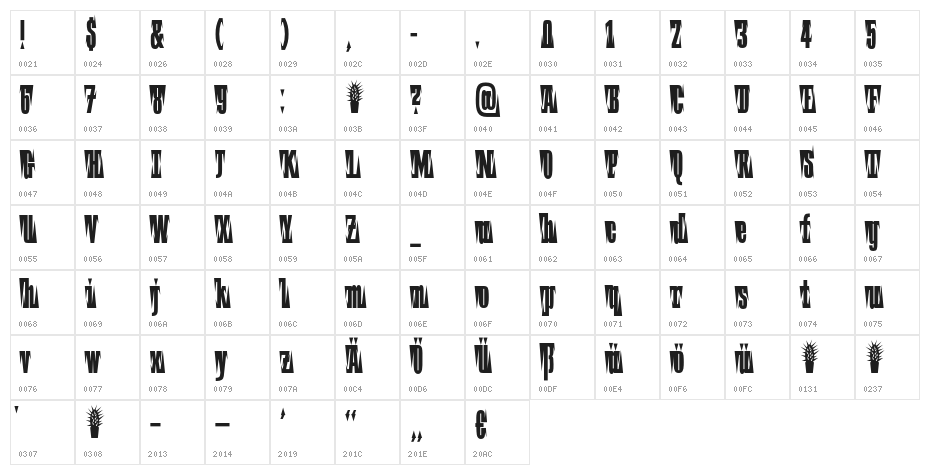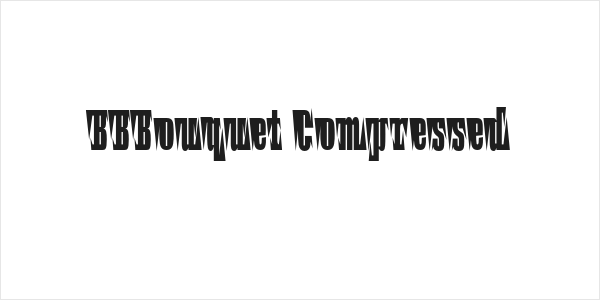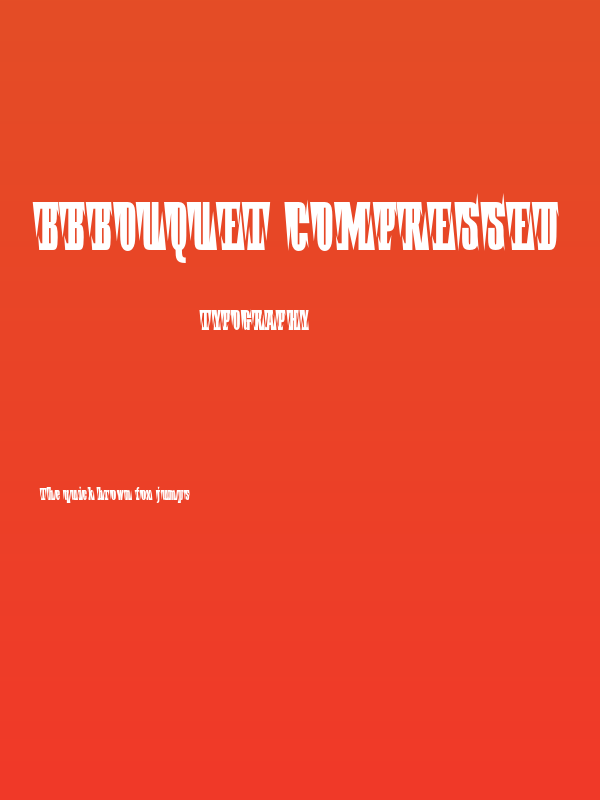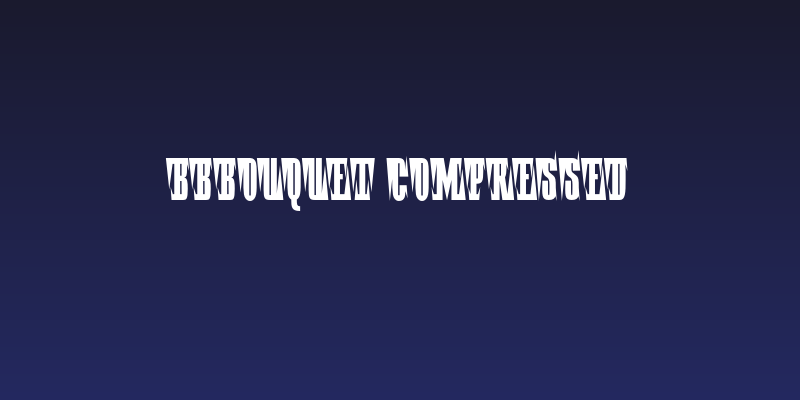
BBBouquet Compressed Font
BBBouquet Compressed Description
This font features a highly stylized and decorative design, characterized by its bold, angular shapes and dramatic flair. The letters are compressed and exhibit a unique, jagged appearance, reminiscent of sharp, pointed edges. The uppercase and lowercase letters maintain a consistent style, with exaggerated serifs and a striking visual impact. The numbers and special characters follow the same aesthetic, ensuring uniformity across the typeface. This font is designed to capture attention and convey a sense of boldness and creativity.
| Proposed Projects | Ideal for eye-catching posters, album covers, branding for edgy or modern products, and artistic projects requiring a bold statement. |